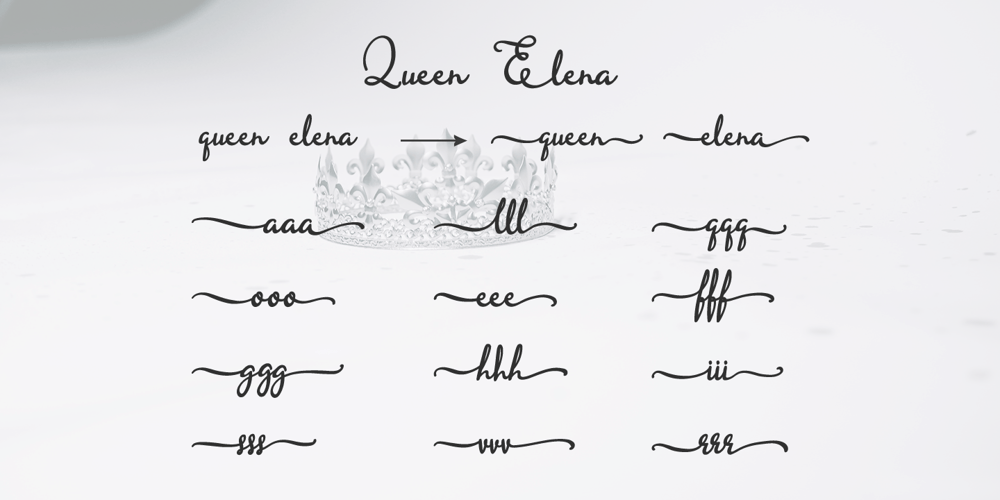
Queen Elena Font Family was designed by Dian Haniffan Hadi and published by Beary. Queen Elena contains 1 styles and family package options. Introducing the elegant new Queen Elena Font! For those of you who are needing a touch of elegance and modernity for your designs, this font was created for you! Queel Elena has the added bonus of having ‘multiple personalities’! It has 2 sets of extra alternate lowercase letters, which allow you to create different feels for different projects. Features: – Uppercase Lowercase – Number & Symbol – Alternates for each characters – Multilingual Happy Creating!